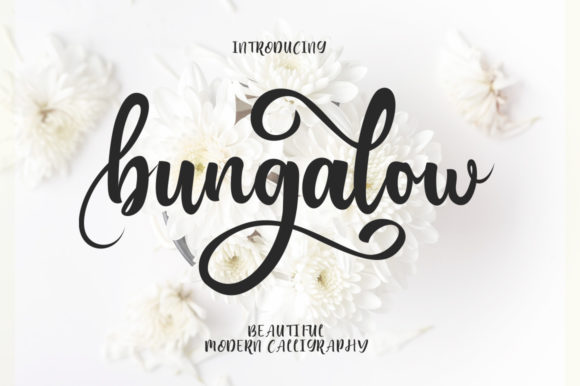
The Bungalow Font: Elevate Your Designs with Modern Script Elegance
I’ll never forget the design project that led me to discover the Bungalow font. I was working on a branding project for a luxury home decor client, and I was struggling to find the perfect script font to capture the essence of their high-end aesthetic. The client wanted something that exuded elegance, sophistication, and a touch of playfulness. After hours of scouring font libraries and testing various options, I stumbled upon Bungalow – and it was love at first sight! 💕
So, what makes Bungalow so special? Here are the things that I absolutely adore about this gorgeous script font:
- ✨ Stunning swashes: The swashes in Bungalow are truly exceptional. They add a level of sophistication and elegance to any design, making it perfect for luxury brands, wedding invitations, and high-end marketing materials.
- ✅ Modern and versatile: Bungalow’s clean lines and classic script style make it incredibly versatile. It works beautifully for both digital and print designs, from social media graphics to business cards and brochures.
- 💫 Easy to read: Despite its elegant and cursive nature, Bungalow remains surprisingly legible, even at smaller font sizes.
Of course, no font is perfect, and Bungalow has a few minor quirks to consider:
- ⚠️ Limited use in body text: While Bungalow is gorgeous, its script style and swashes can make it challenging to read in longer blocks of text. It’s best used for headings, titles, or short paragraphs.
- 🤔 Requires some experimentation: To get the most out of Bungalow’s features, you’ll need to explore its OpenType features and glyphs. This might require some time and experimentation to master.
The Story Behind Bungalow: Designer Inspiration
Bungalow was designed with the goal of creating a modern script font that exudes elegance and sophistication. The designer’s inspiration came from traditional script fonts, combined with a desire to create something fresh and contemporary. The result is a font that’s both timeless and trendy – perfect for designers looking to elevate their projects.
Q: What makes Bungalow unique?
A: Bungalow’s unique blend of modern and classic script styles, combined with its stunning swashes, sets it apart from other fonts.
Q: Is Bungalow suitable for body text?
A: While Bungalow is gorgeous, its script style and swashes can make it challenging to read in longer blocks of text. It’s best used for headings, titles, or short paragraphs.